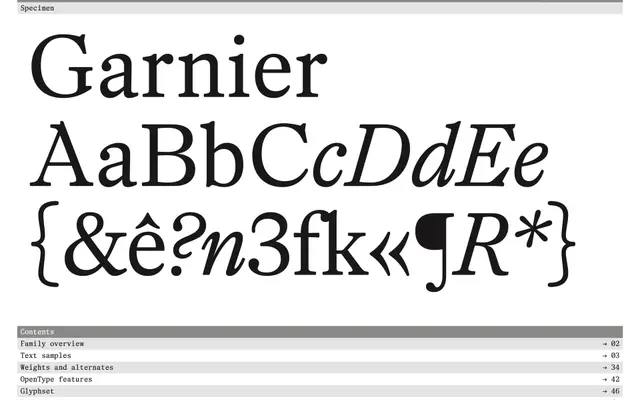
A transitional serif family from Proof of Words spanning five weights with matching italics, suited to text and editorial work.
Five weights from Light to ExtraBold, each with a companion italic, give Garnier a range broad enough for both running text and display use. The specimen shows confident stroke contrast and well-proportioned letterforms consistent with the transitional model. A practical choice for editorial settings where a conventional serif is needed without eccentricity.
The specimen shows bracketed serifs, moderate contrast between thick and thin strokes, and upright italic forms consistent with a transitional serif classification. The range from Light to ExtraBold with italics suggests a versatile text and display family in the transitional tradition.